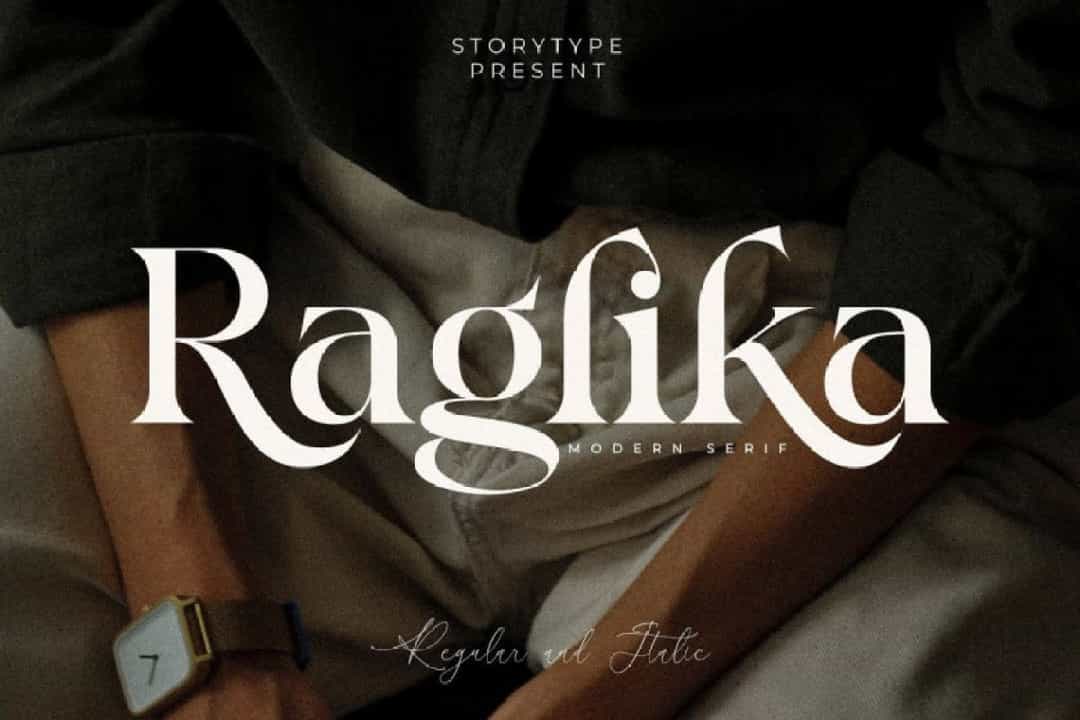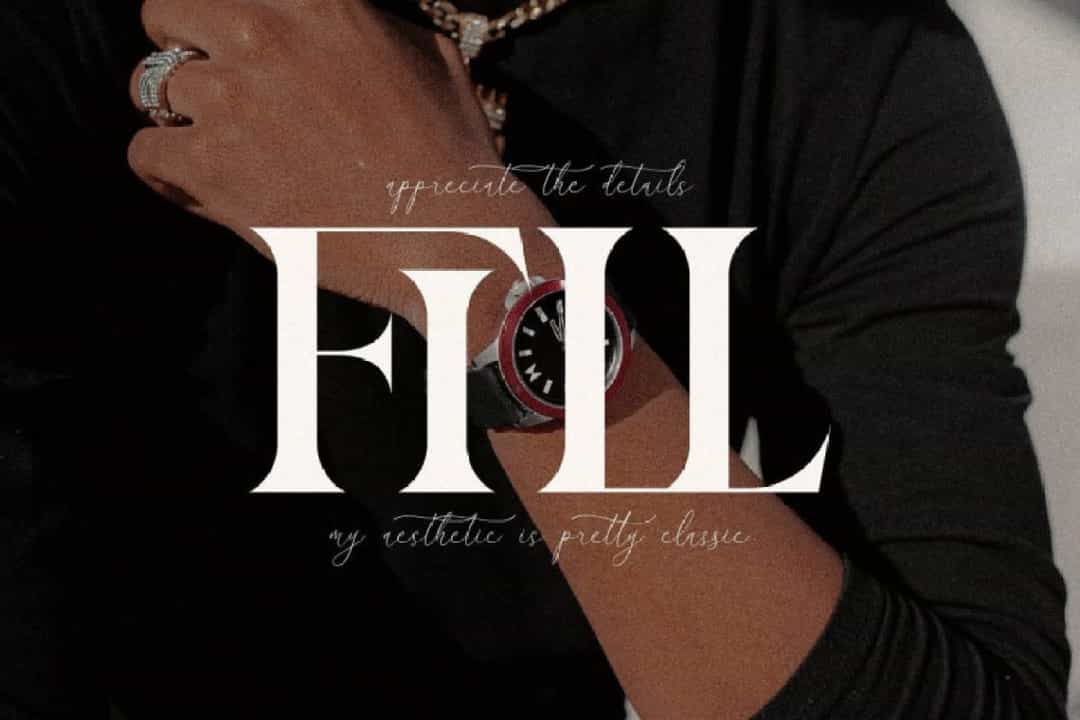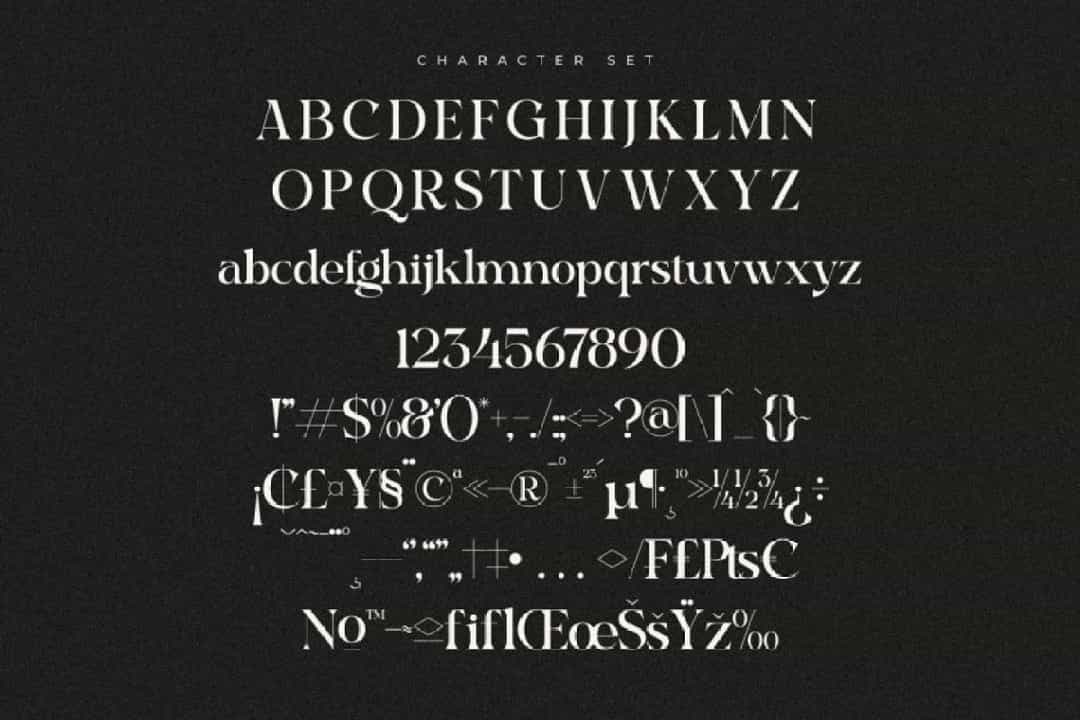
Raglika is an elegant contemporary serif font. Perfect for creating stylish logos, movie or book titles, fashion labels magazines clothing letters quotes or any other creative use, Raglika can help create timeless and modern aesthetics in logo design, movie productions or book writings.